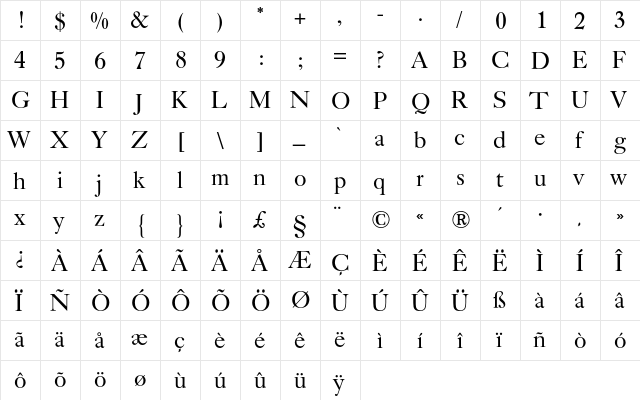
Caslon Four Seventy One BQ Regular
Design Context for Caslon Four Seventy One BQ Typeface
Caslon Four Seventy One BQ offers clean, dependable letterforms without strong stylistic allegiance, making it a practical choice for designers who need flexibility.